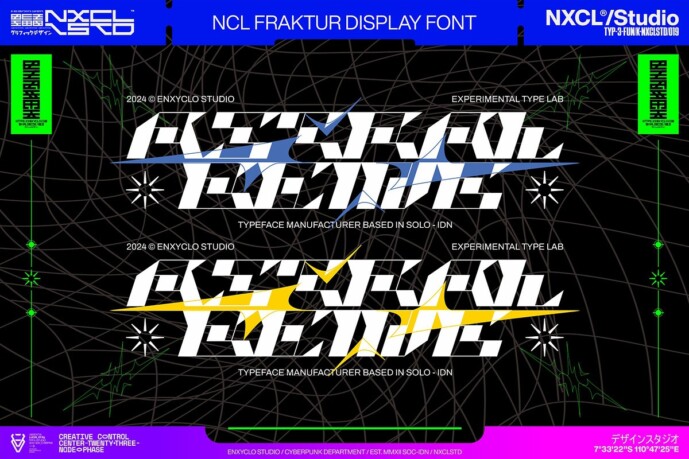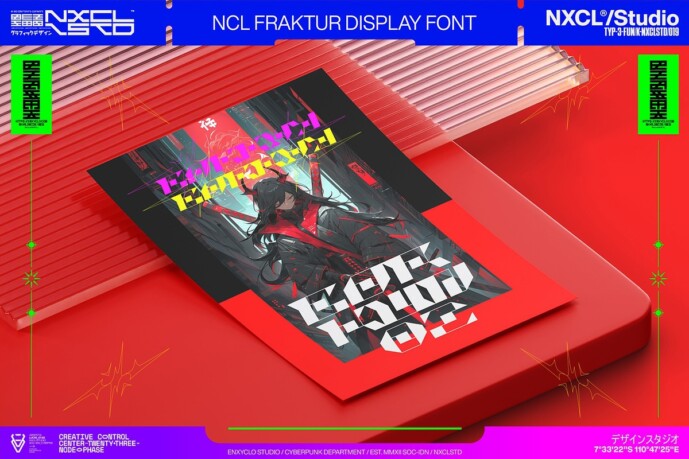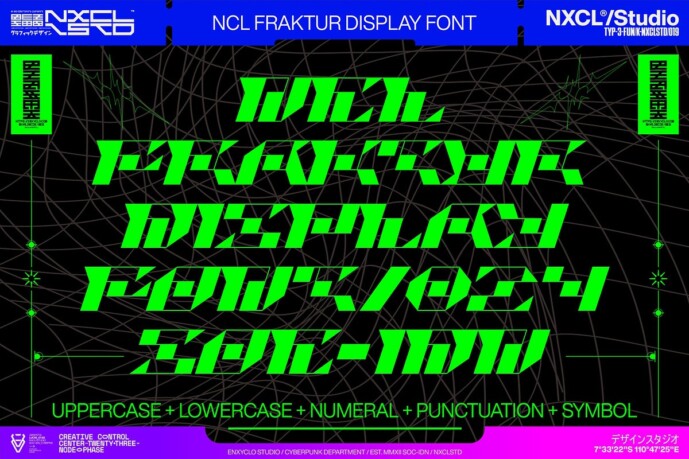
NCL Fraktur Font
NCL Fraktur Font is the ultimate futuristic y2k cyberpunk mecha industrial typeface. With sharp, angular shapes on all sides, it gives off a strong futuristic vibe. The contrasting thick and thin lines of its stem make it both unique and timeless, perfect for both modern and classic designs with a futuristic touch. This stunning and powerful font cuts through the noise, bringing a bold industrial edge to your designs. With its sleek and futuristic design, this font is perfect for any futuristic or cyberpunk design, album artwork, posters, headlines, and logotypes. Add this font to your design toolkit today and unleash the cutting-edge style of this versatile font.